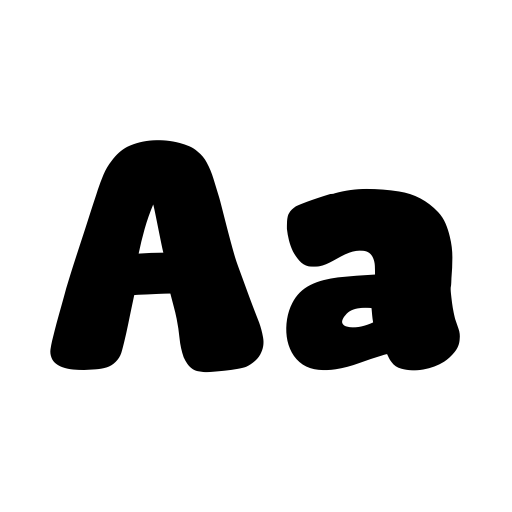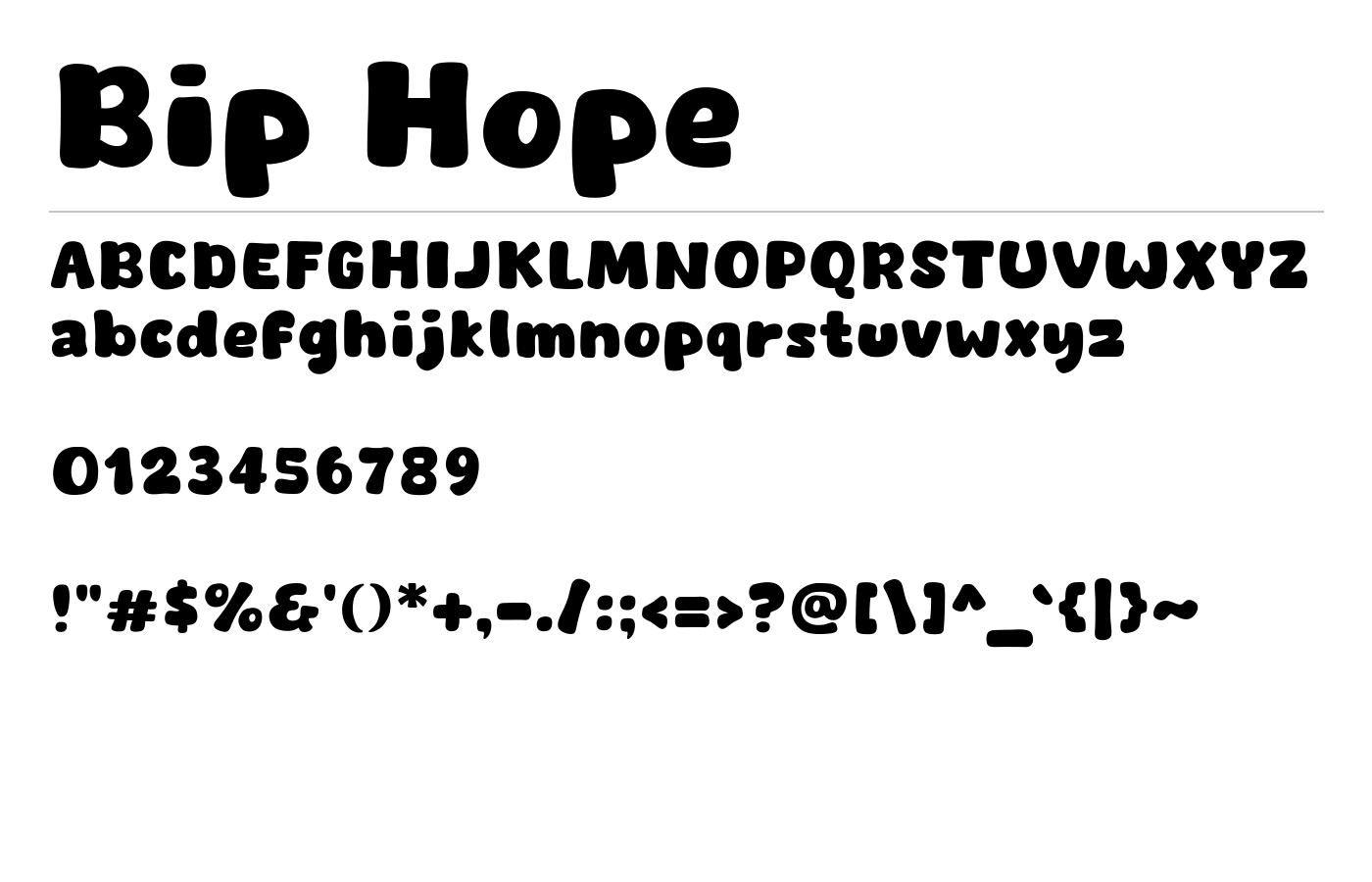
Bip Hope is a playful, bold sans serif font with rounded, chunky letterforms that give it a friendly and approachable personality. Its consistent weight and soft, irregular shapes make it ideal for fun, informal designs like children’s books, logos, and casual branding. This font works best in headlines or display use where a warm, whimsical touch is desired.
Bip Hope Font
About Bip Hope Font
| Font family | Bip Hope Font |